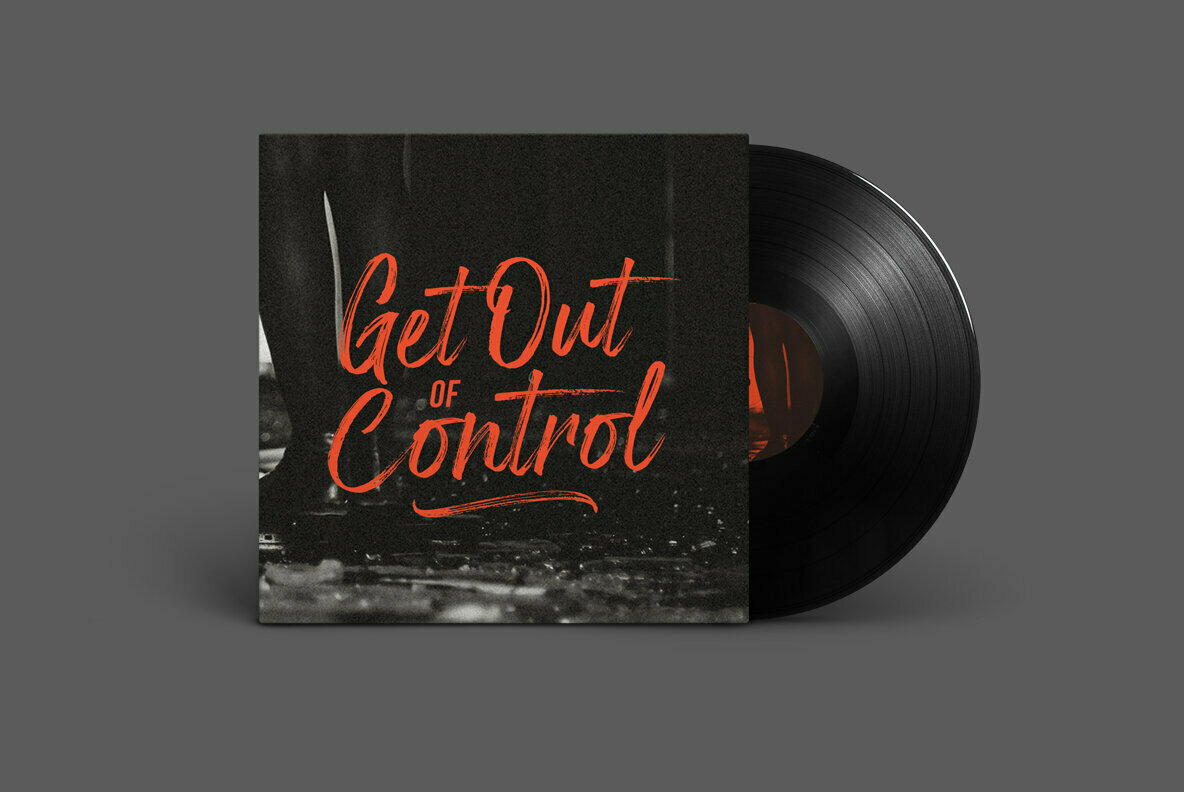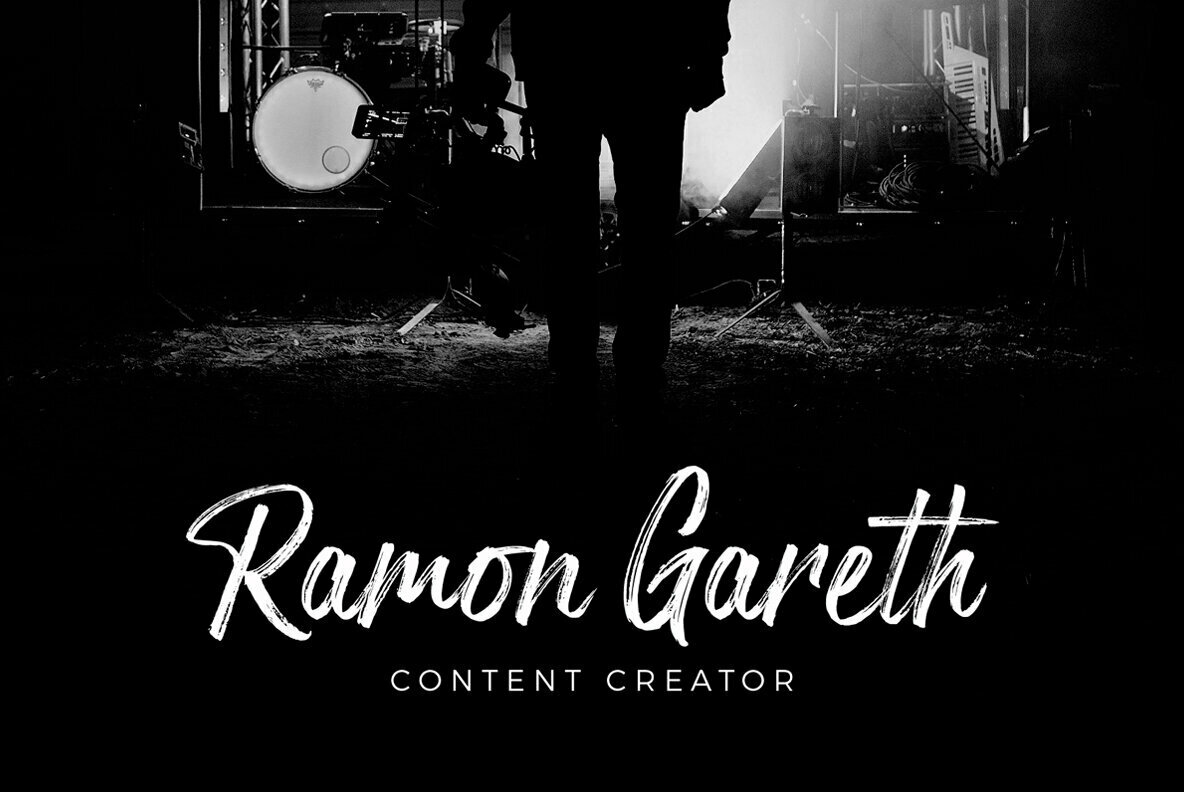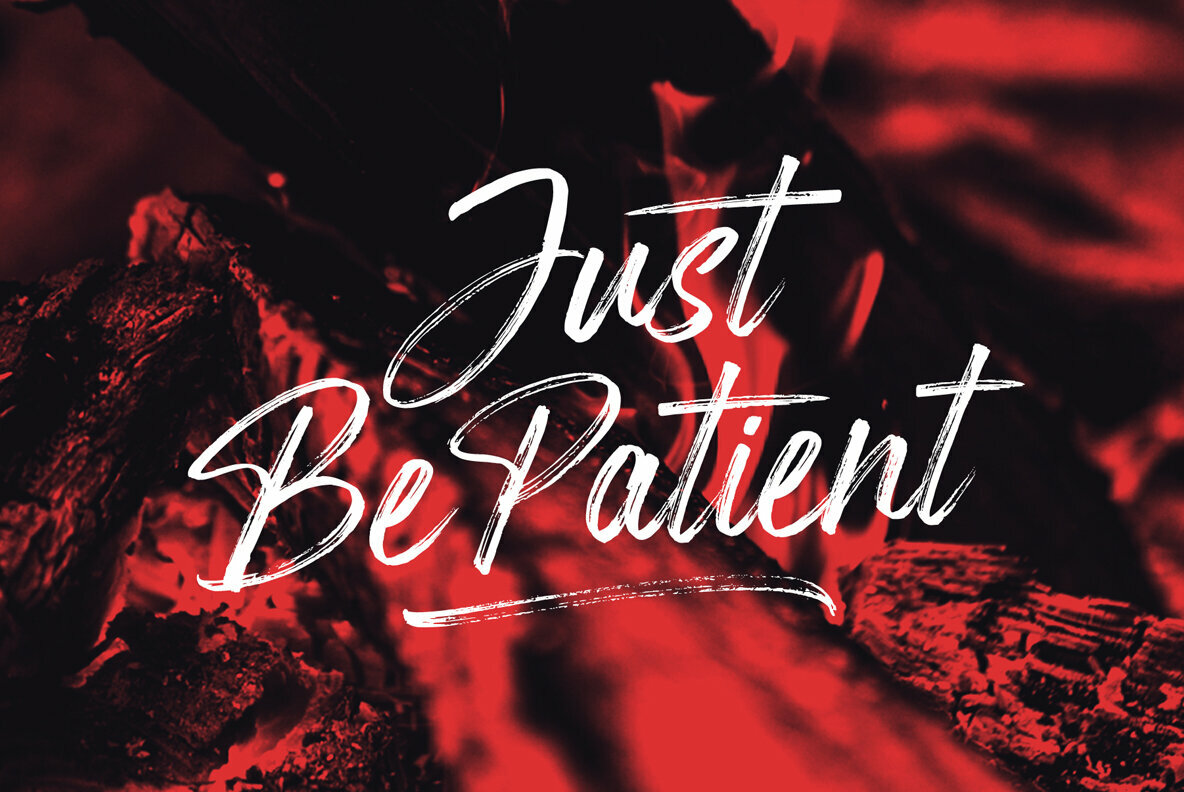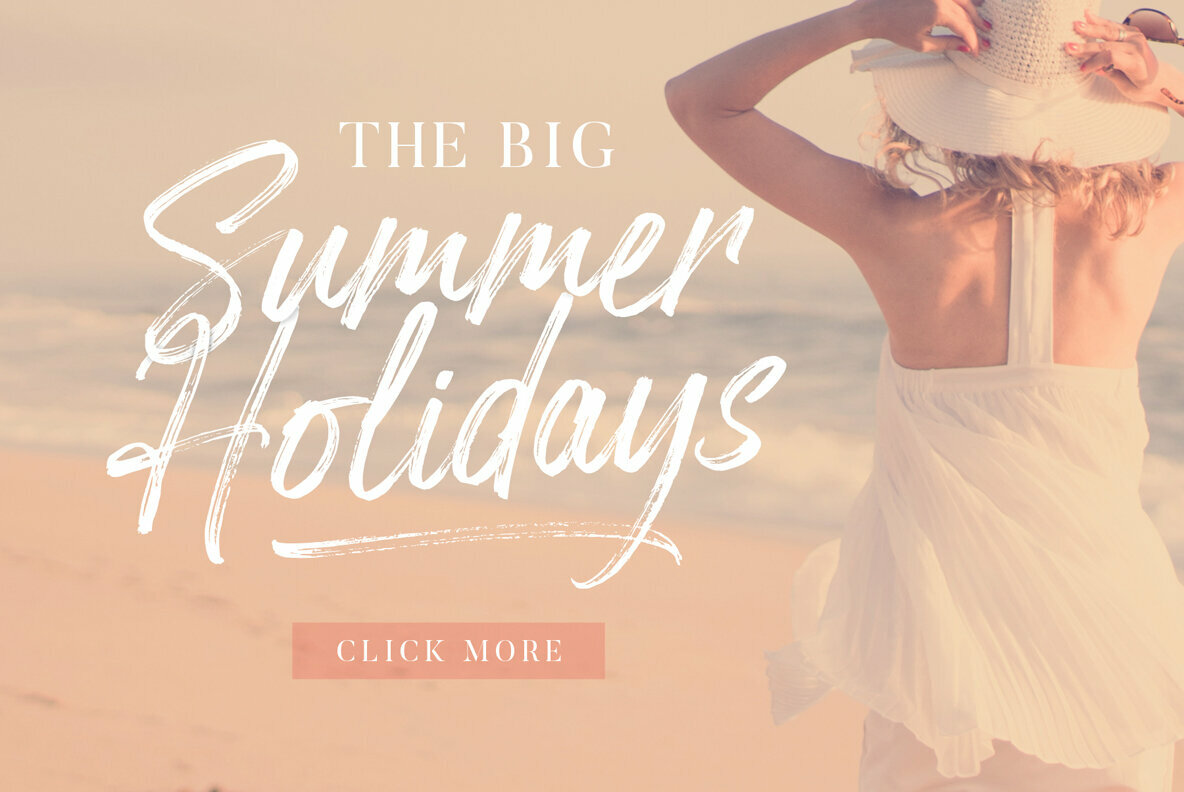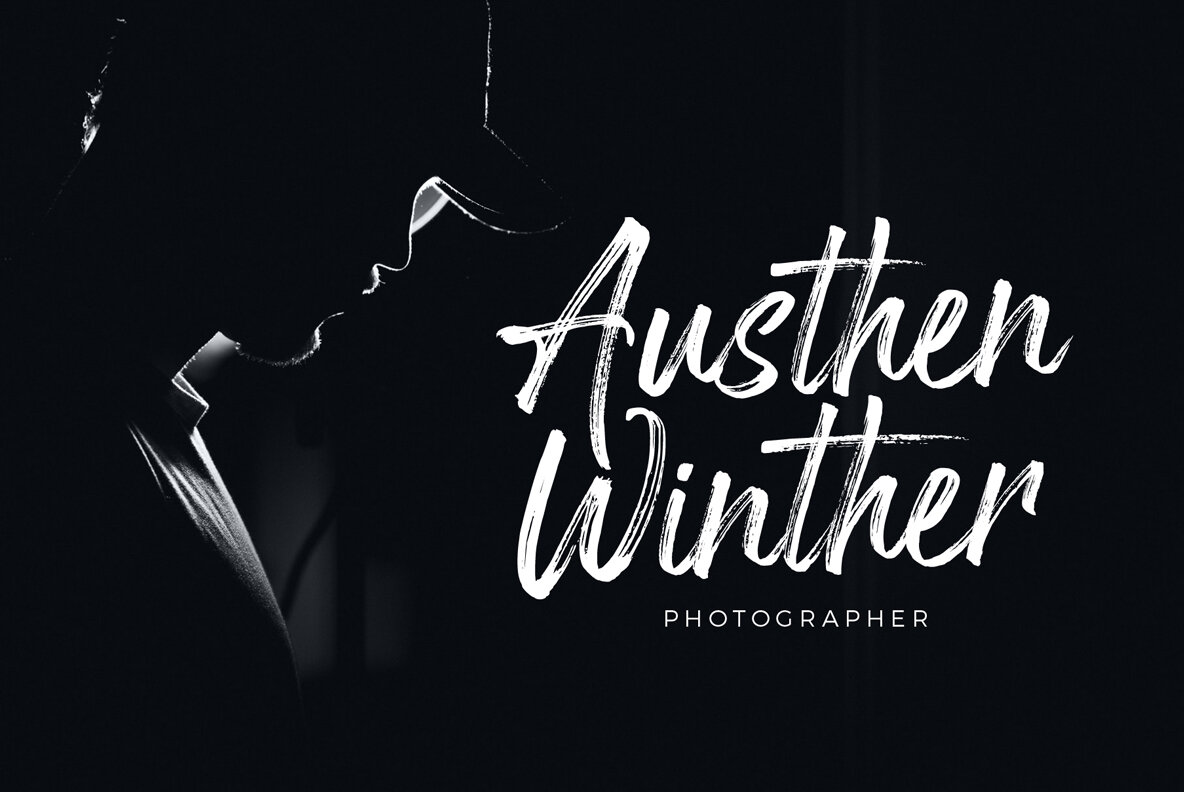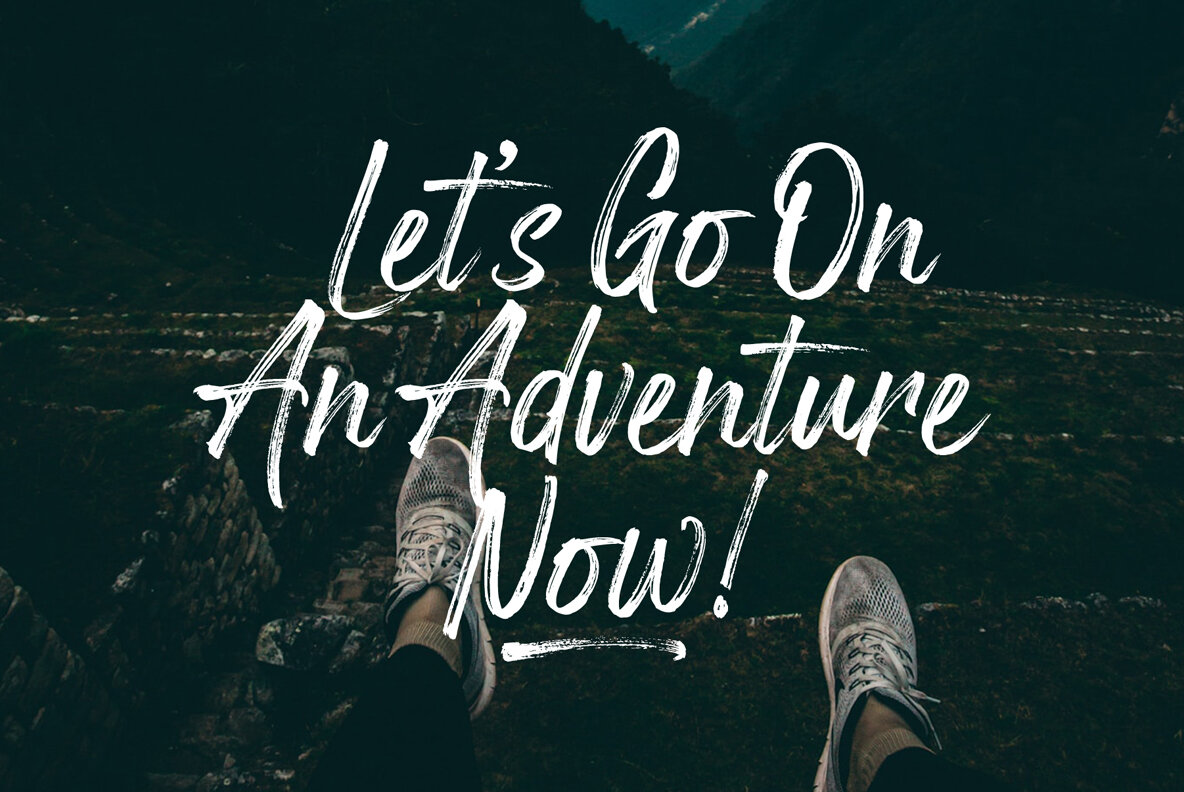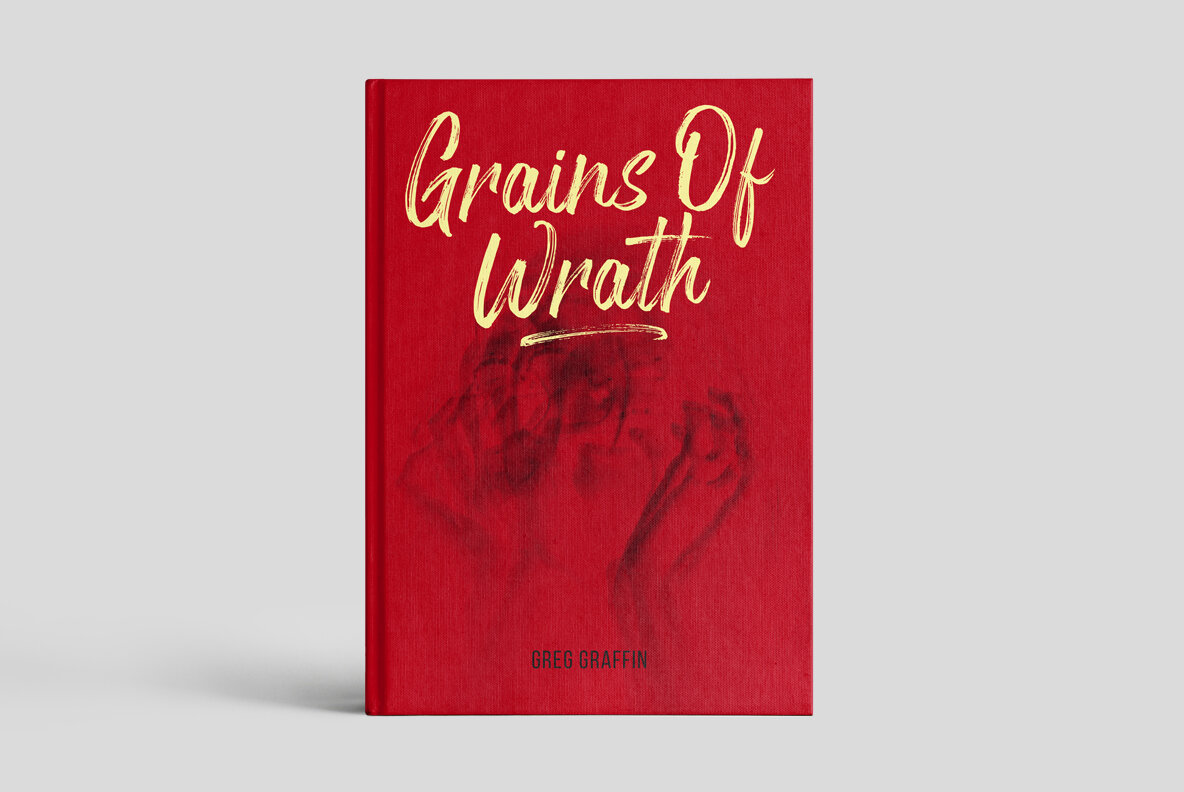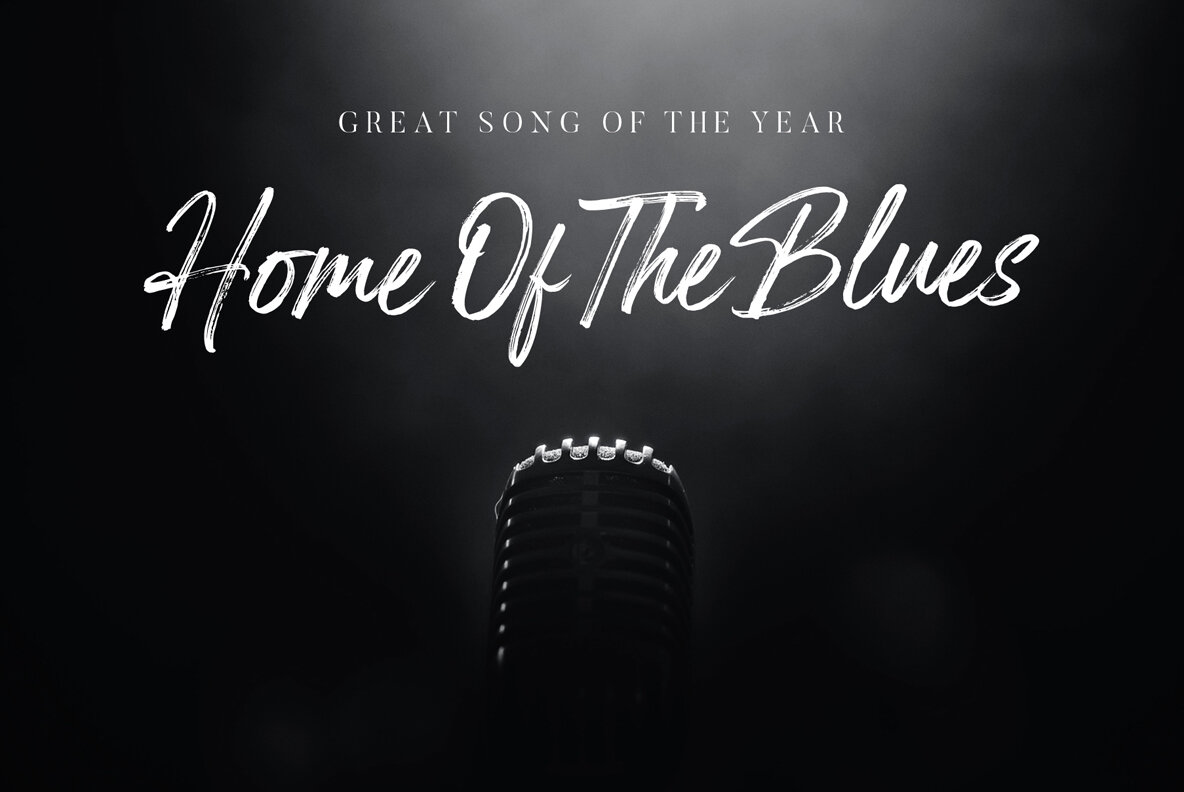
Arthur Hill Font
Arthur Hill Regular
Arthur Hill Slant
Arthur Hill Swash
Arthur Hill exudes artisanal craftsmanship with its handwritten style, reminiscent of a dry brush pen. Its sharp details make it a standout choice for various creative projects, infusing a sense of authenticity and character.Arthur Hill: Sharp Handwritten Brush Script
Perfect for Creative Projects